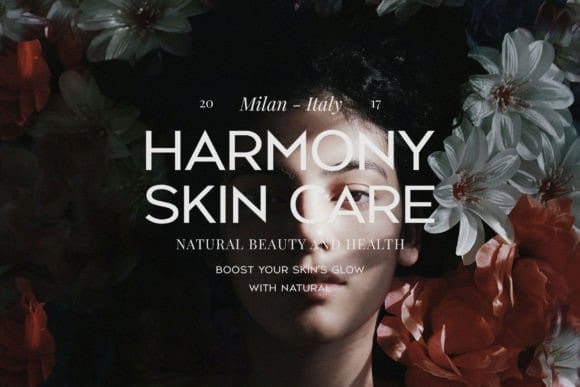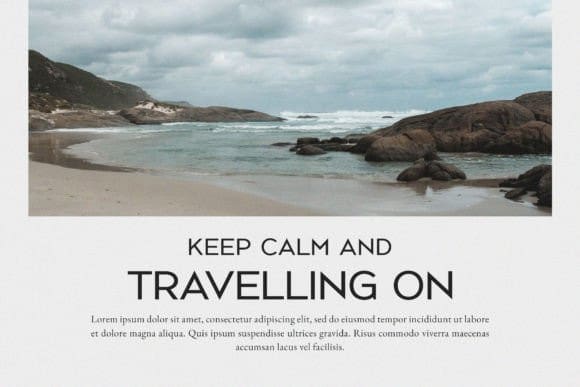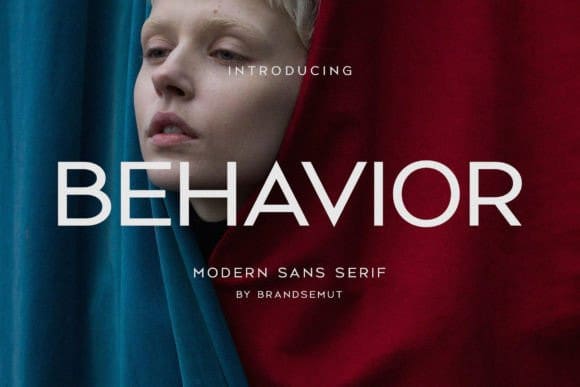
Behavior Font
Behavior Font is a delicate and thin sans-serif font with a minimalist design. Its slender letterforms and clean lines give it a refined and elegant appearance, making it perfect for use in high-end design projects or branding. Behavior is an excellent choice for designs that require a sophisticated and modern look without sacrificing legibility.